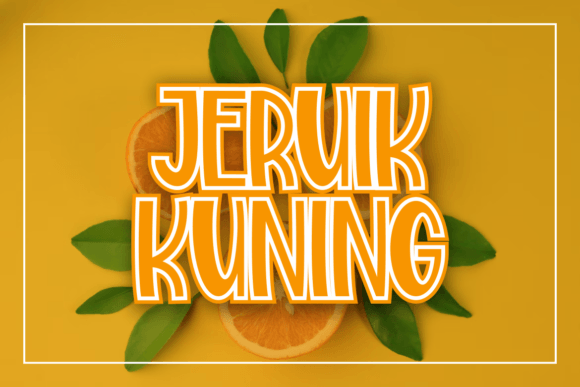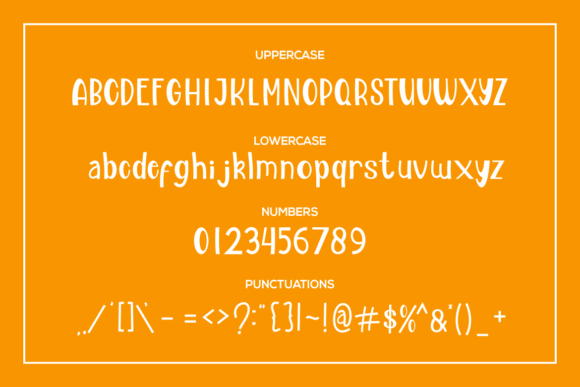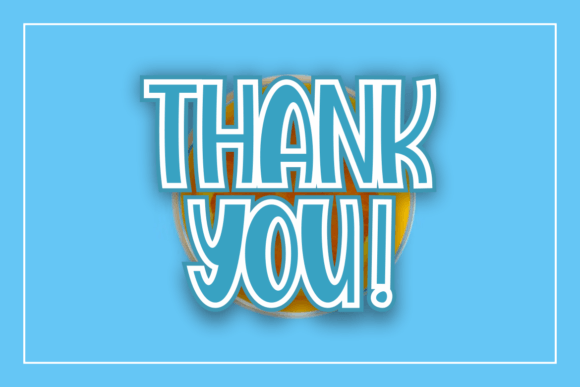
Cingkong Font: Add a Touch of Whimsy to Your Designs
Are you tired of using the same old fonts in your designs? Look no further than Cingkong Font, a fun and whimsical display font that’s perfect for adding a touch of personality to your projects. Whether you’re a digital designer, crafter, or simply someone who loves to make greeting cards, Cingkong Font is a great addition to your font collection.
What is Cingkong Font?
Cingkong Font is a unique and playful display font that’s designed to bring a smile to your face. Its whimsical design makes it perfect for use in a variety of projects, from digital designs to handmade crafts. The font is characterized by its bold, rounded letters and fun, irregular shapes, giving it a distinctly playful feel.
Features of Cingkong Font
• Fun and Whimsical Design: Cingkong Font has a unique and playful design that’s sure to add a touch of personality to your projects.
• Bold and Rounded Letters: The font features bold, rounded letters that are easy to read and fun to look at.
• Irregular Shapes: The irregular shapes of the letters give the font a distinctly playful feel.
• Perfect for Display Text: Cingkong Font is designed specifically for use as display text, making it perfect for headlines, titles, and other prominent text.
Uses for Cingkong Font
Cingkong Font is a versatile font that can be used in a variety of projects, including:
• Digital Designs: Use Cingkong Font to add a touch of whimsy to your digital designs, such as social media graphics, blog posts, and website headers.
• Crafting: Cingkong Font is perfect for use in handmade crafts, such as scrapbooking, card making, and other paper crafts.
• Presentations: Add some personality to your presentations with Cingkong Font, perfect for use in title slides, headings, and other display text.
• Greeting Cards: Use Cingkong Font to create fun and playful greeting cards for special occasions.
Why Choose Cingkong Font?
There are many reasons to choose Cingkong Font for your next project. Here are just a few:
• Unique Design: Cingkong Font has a unique and playful design that’s sure to stand out from the crowd.
• Easy to Read: Despite its playful design, Cingkong Font is easy to read, making it perfect for use in a variety of projects.
• Versatile: Cingkong Font can be used in a variety of projects, from digital designs to handmade crafts.
• Fun to Use: Let’s face it – Cingkong Font is just plain fun to use! It’s sure to bring a smile to your face and add some personality to your projects.
Tips for Using Cingkong Font
Here are a few tips for getting the most out of Cingkong Font:
• Use it as Display Text: Cingkong Font is designed specifically for use as display text, so use it to add a touch of personality to your headlines, titles, and other prominent text.
• Experiment with Colors: Cingkong Font looks great in a variety of colors, so don’t be afraid to experiment and find the perfect color for your project.
• Pair it with Other Fonts: Cingkong Font pairs well with a variety of other fonts, so try pairing it with some of your other favorite fonts to create a unique look.
Font Name Cingkong Font
Author yohanes mulat argo
Cingkong Font is a fun and whimsical display font that’s perfect for adding a touch of personality to your projects. With its unique design, bold and rounded letters, and irregular shapes, it’s sure to stand out from the crowd. Whether you’re a digital designer, crafter, or simply someone who loves to make greeting cards, Cingkong Font is a great addition to your font collection. So why not give it a try and see what kind of fun and creative projects you can come up with?